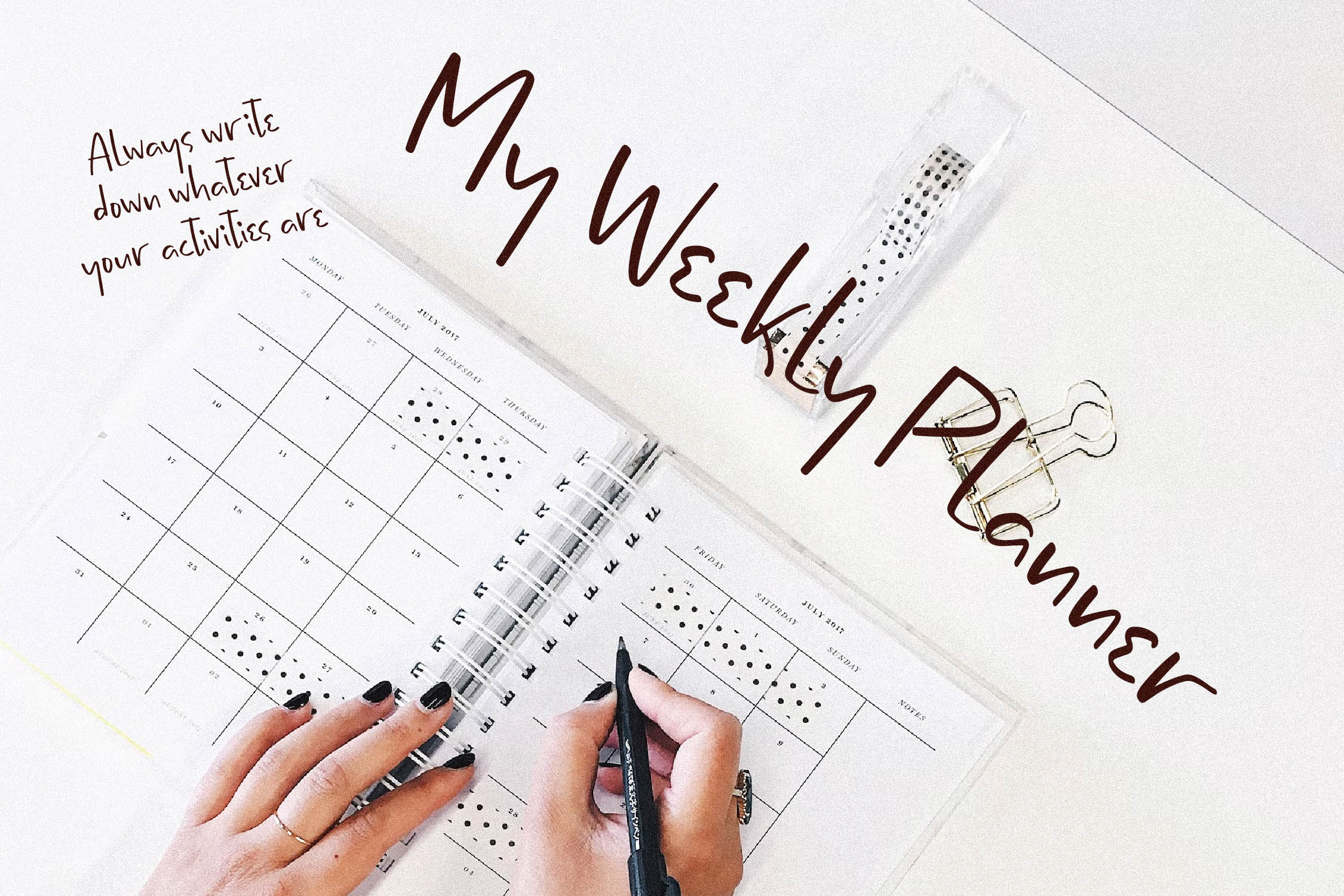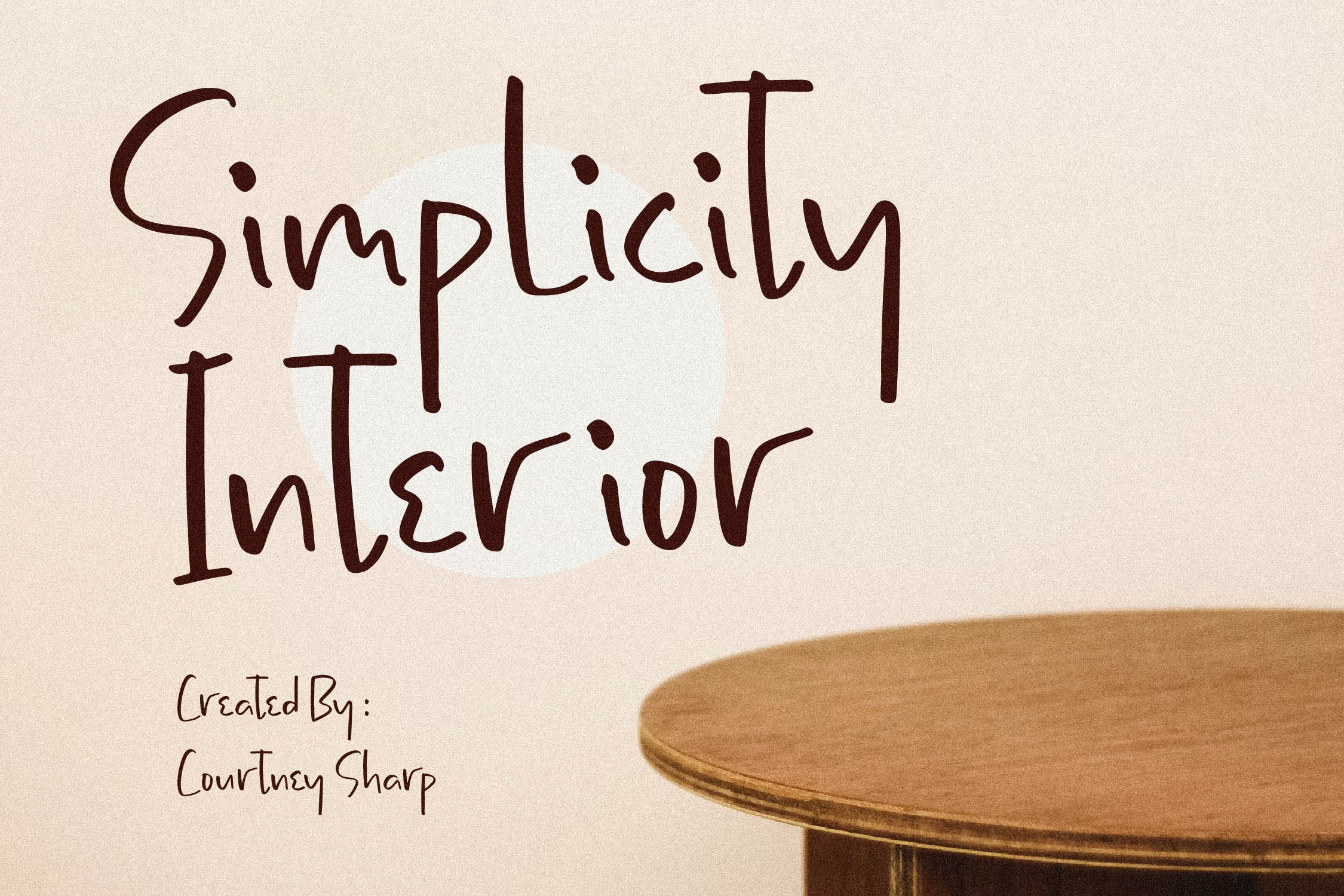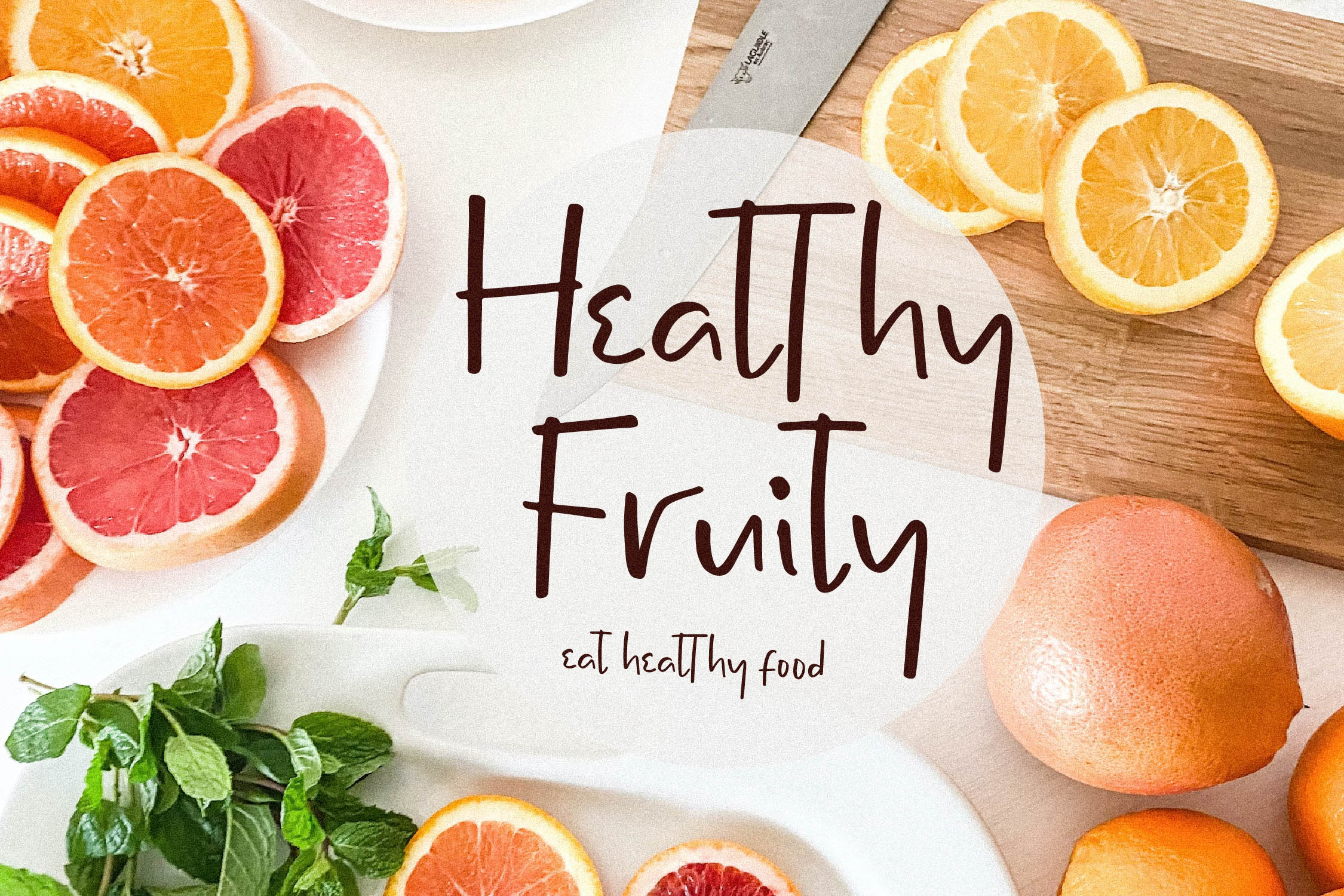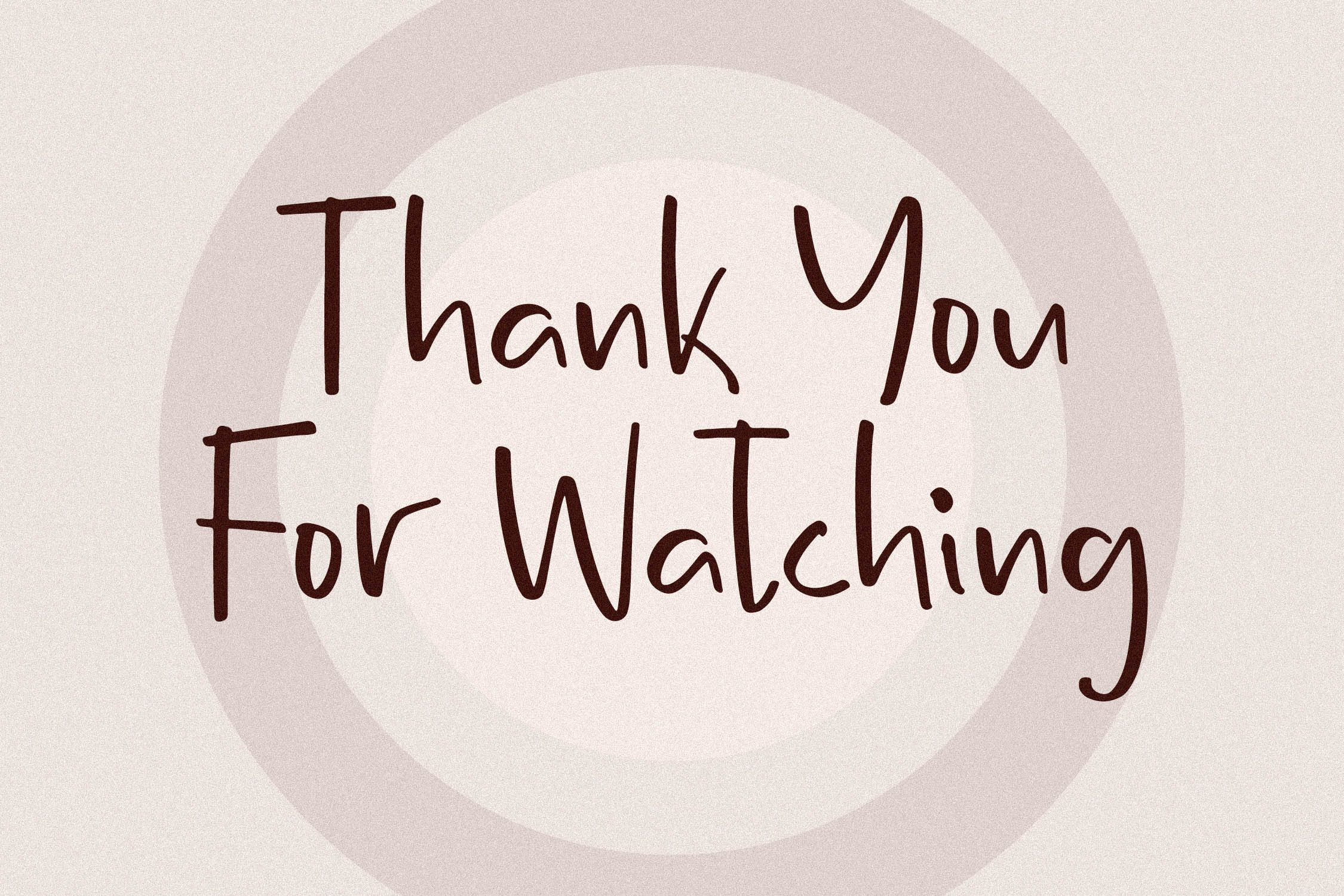
Marsden Noted Font
Marsden Noted Script Font is a Note Handwritten Font, from Glorytype Studio, suitable for any projects such as: logos, branding projects, homeware designs, product packaging, mugs, quotes, posters, shopping bags, t-shirts, book covers, name card, invitation cards, greeting cards, label, photography, watermark, special events, and all your other lovely projects that need a beautiful script taste.